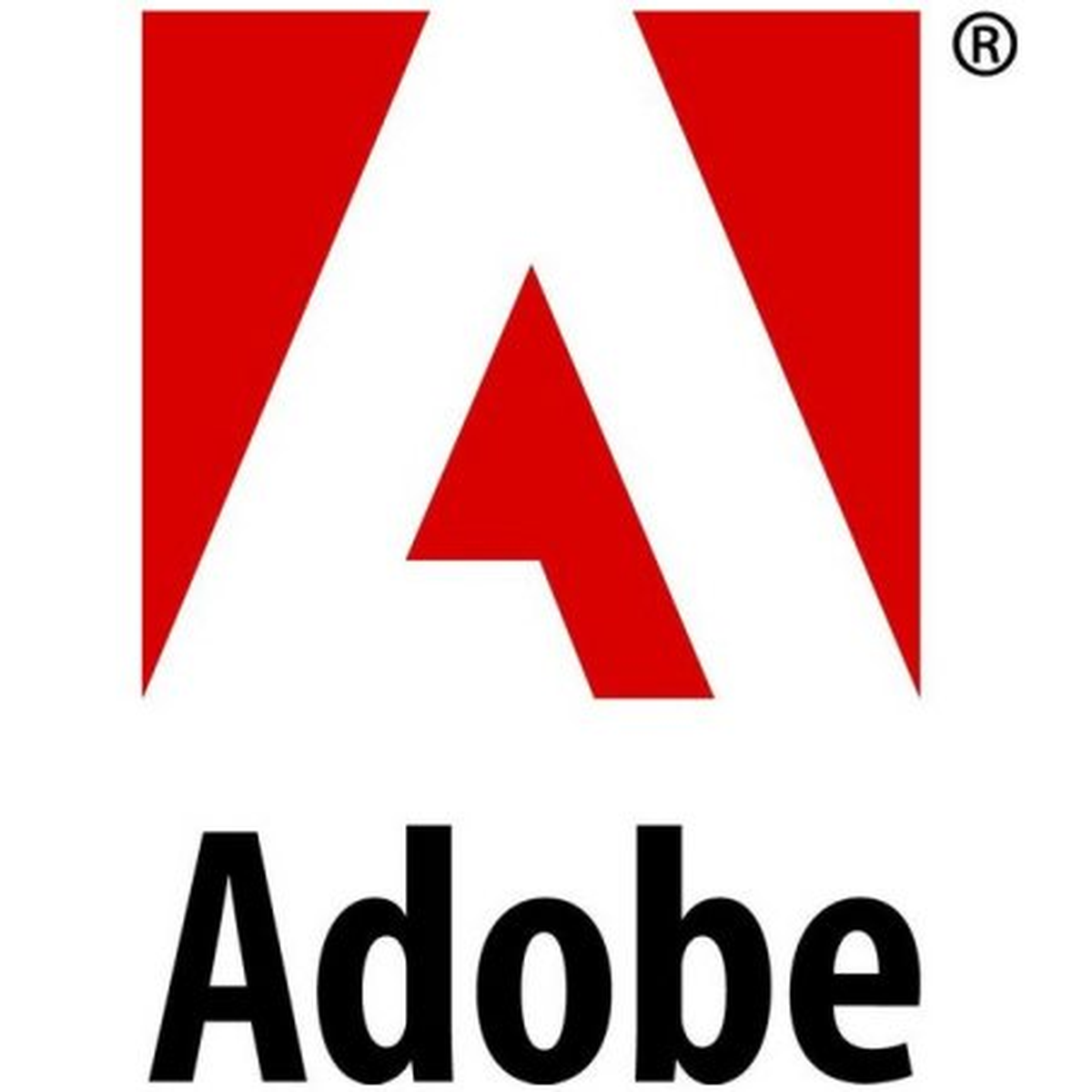
About Adobe
Adobe is the American software company founded in 1982, maker of Photoshop, Illustrator, Premiere Pro, and the Creative Cloud suite that has defined professional design tooling for four decades. Its current identity, rolled out with the Spectrum design system, centres on a clean humanist sans whose open, friendly forms read clearly from app splash screens to billboard campaigns.
Headquartered in San Jose, Adobe refreshed its brand in the 2010s around a single typographic voice used across every product, marketing surface, and the Creative Cloud apps themselves. The humanist sans gives the company a warm, approachable tone that still reads as precise and professional, a fitting balance for a business whose audience is designers with strong opinions about type. That consistent, low-contrast sans is the look this font recreates.
What font does Adobe use?
Adobe uses Adobe Clean, the proprietary corporate typeface designed by Robert Slimbach for Adobe and used across the Spectrum design system and Creative Cloud apps. It is not licensed for use outside Adobe products. The font on this page is Lipi's original generated lookalike of that humanist-sans style.
Where this style works
This clean humanist sans works for software and SaaS branding, product UI, app onboarding screens, marketing sites, documentation, and any identity that needs to read as modern, friendly, and professional at once. The open apertures and low contrast keep it legible at small UI sizes, while the medium weight gives headers and wordmarks enough presence to anchor a layout.
What fonts are similar to the Adobe font?
Comparable humanist sans-serifs include Source Sans 3 (Adobe's own open-source release), Myriad Pro, Frutiger, Segoe UI, and Open Sans. Source Sans 3 and Open Sans are the closest free options via Google Fonts.
Adobe Font: Rocket Core